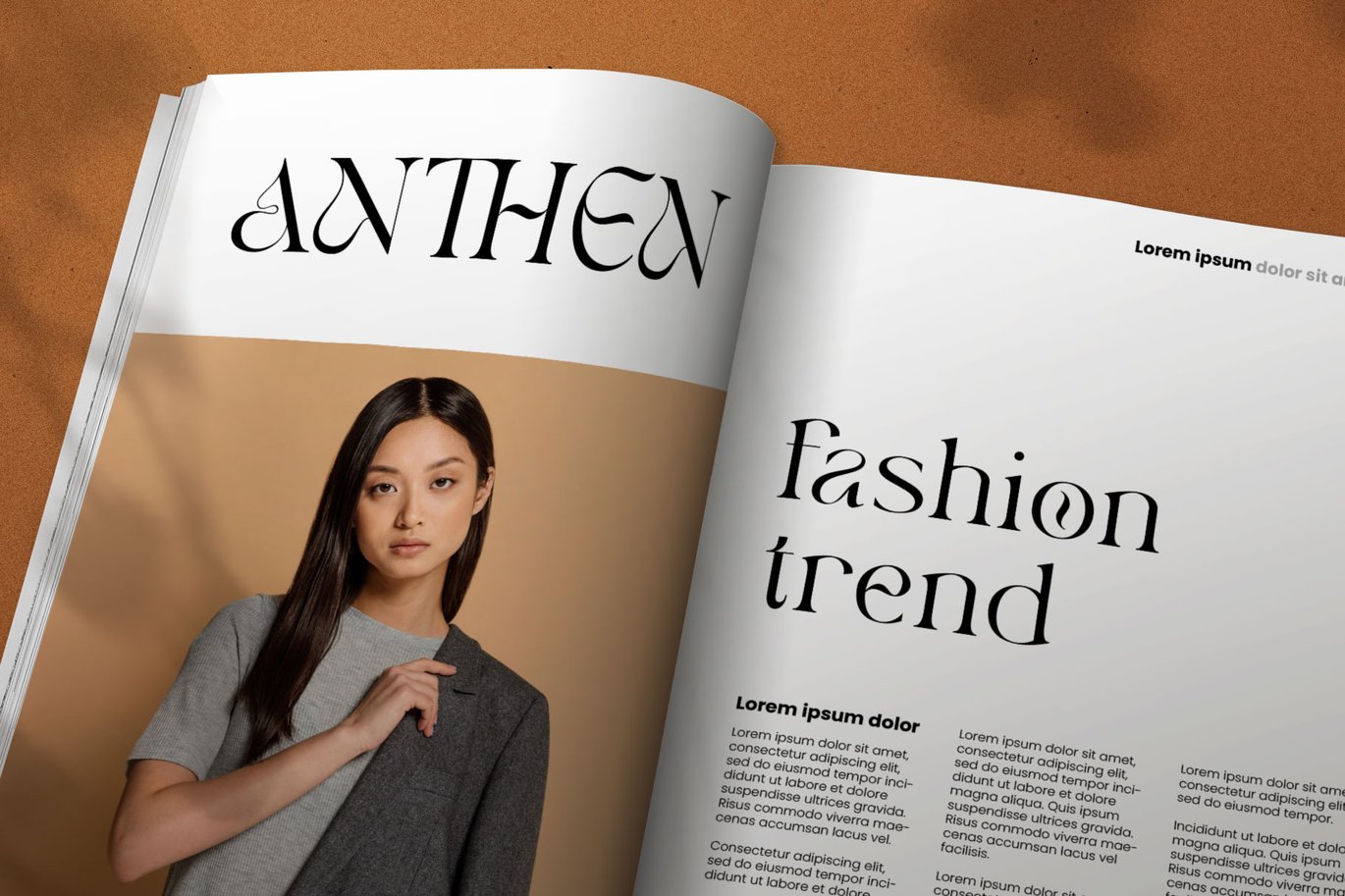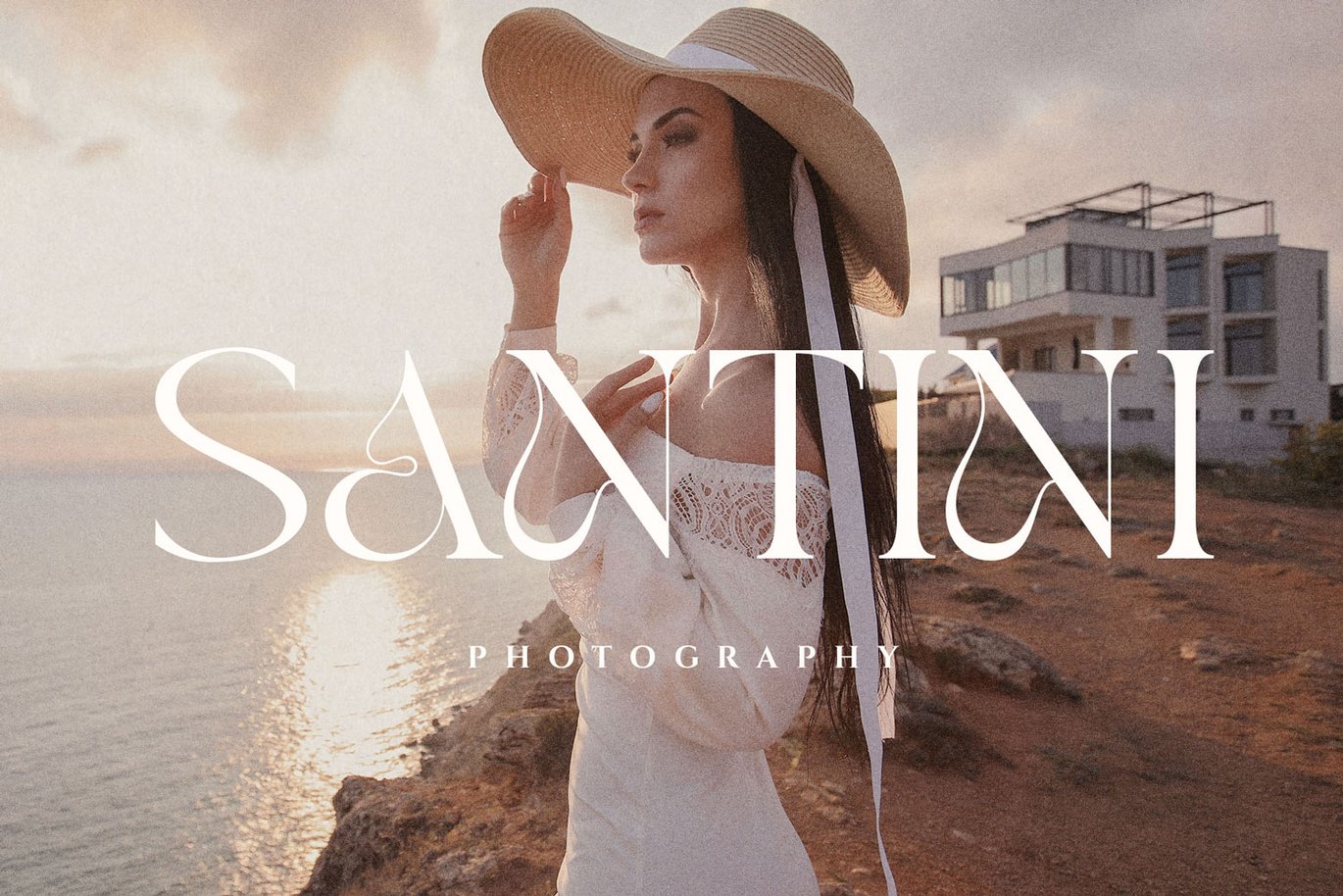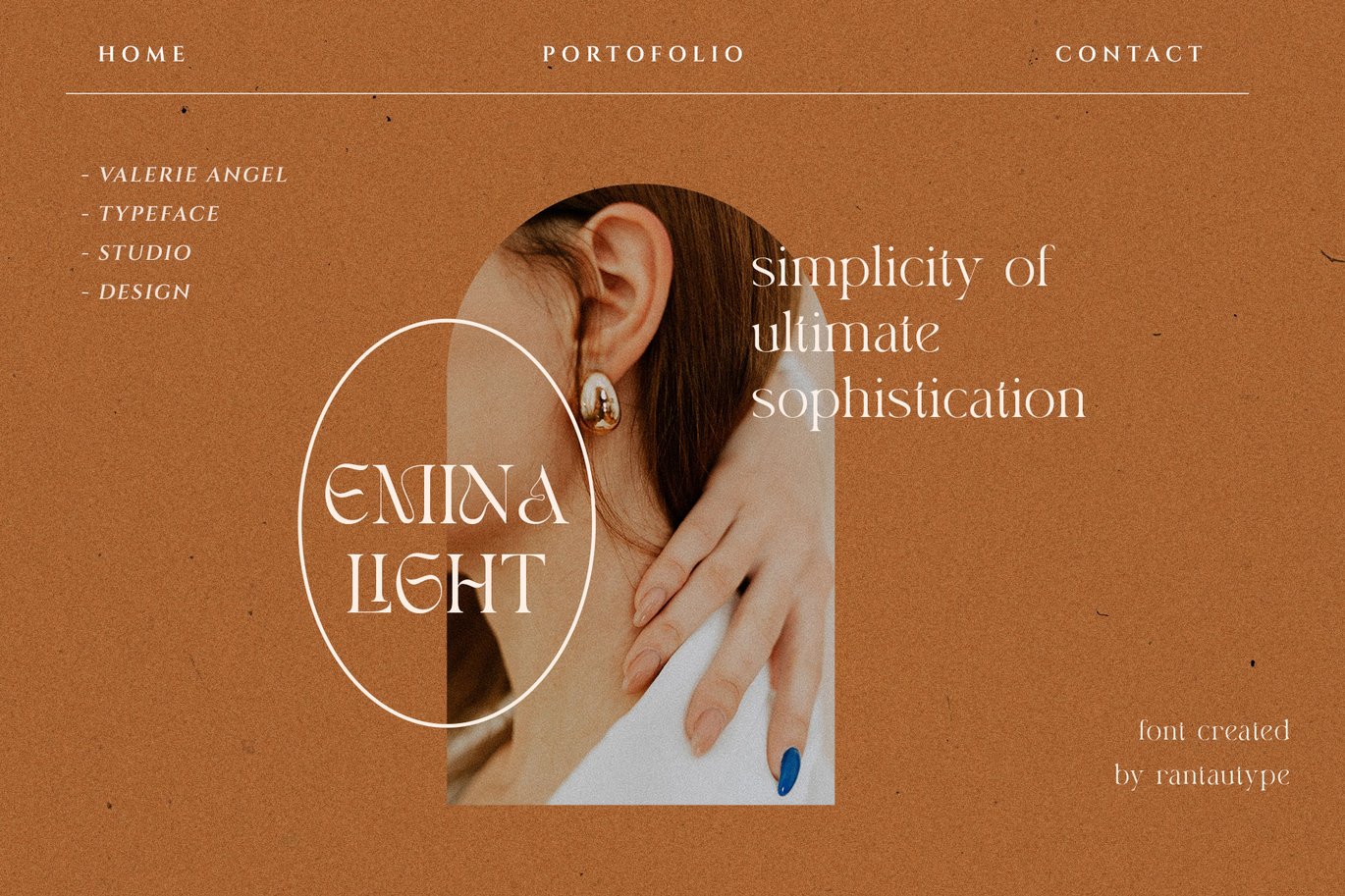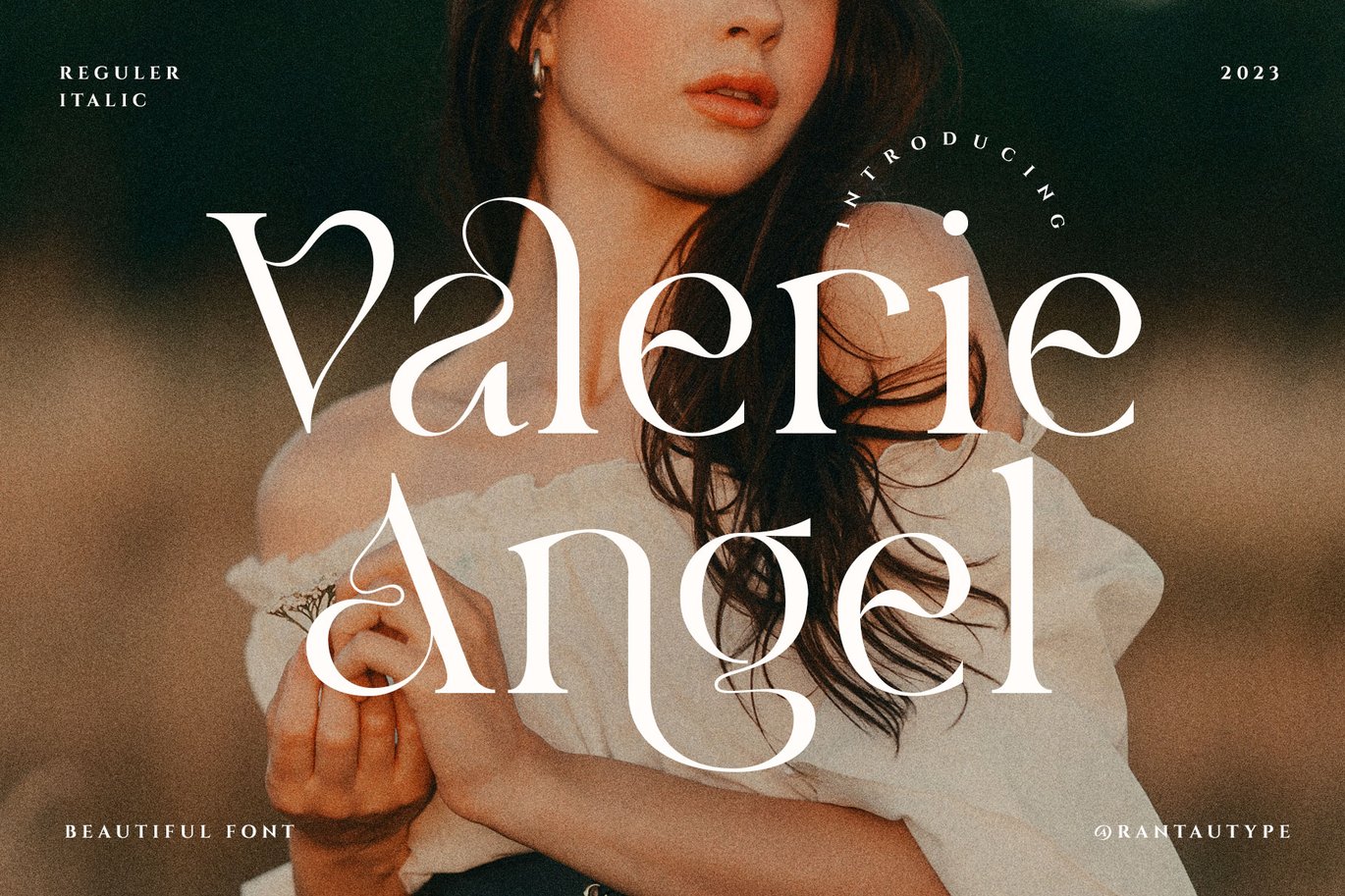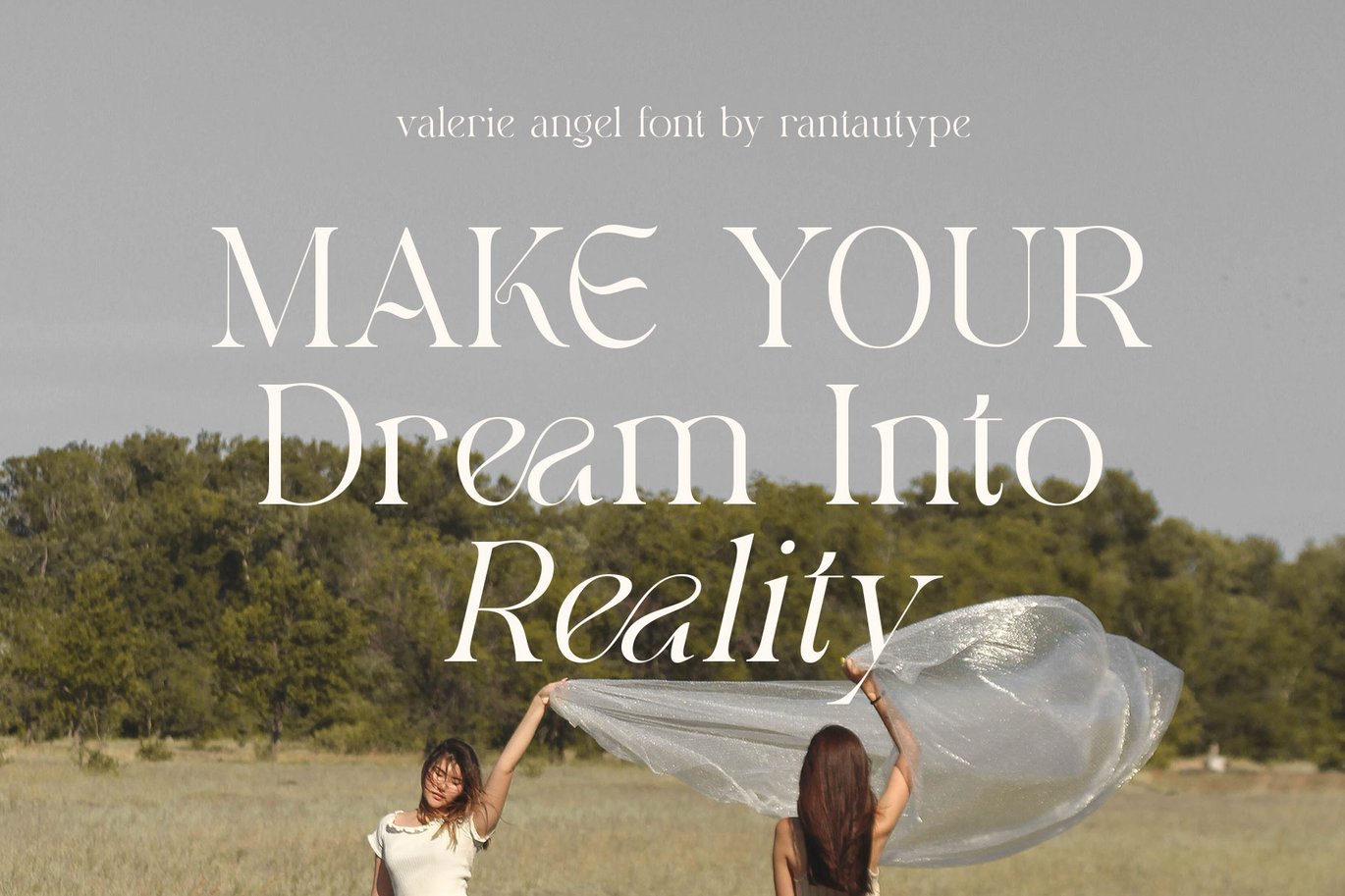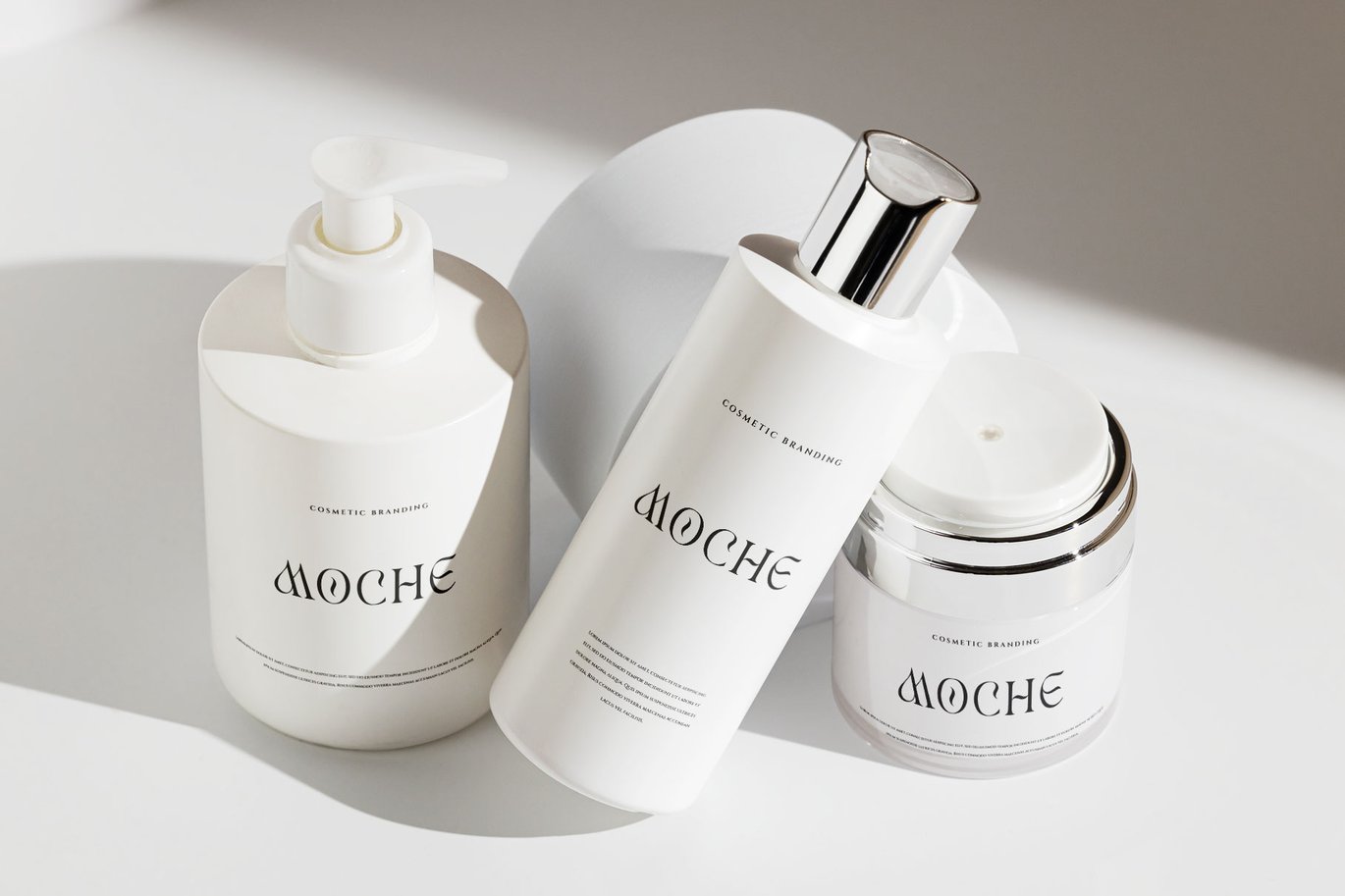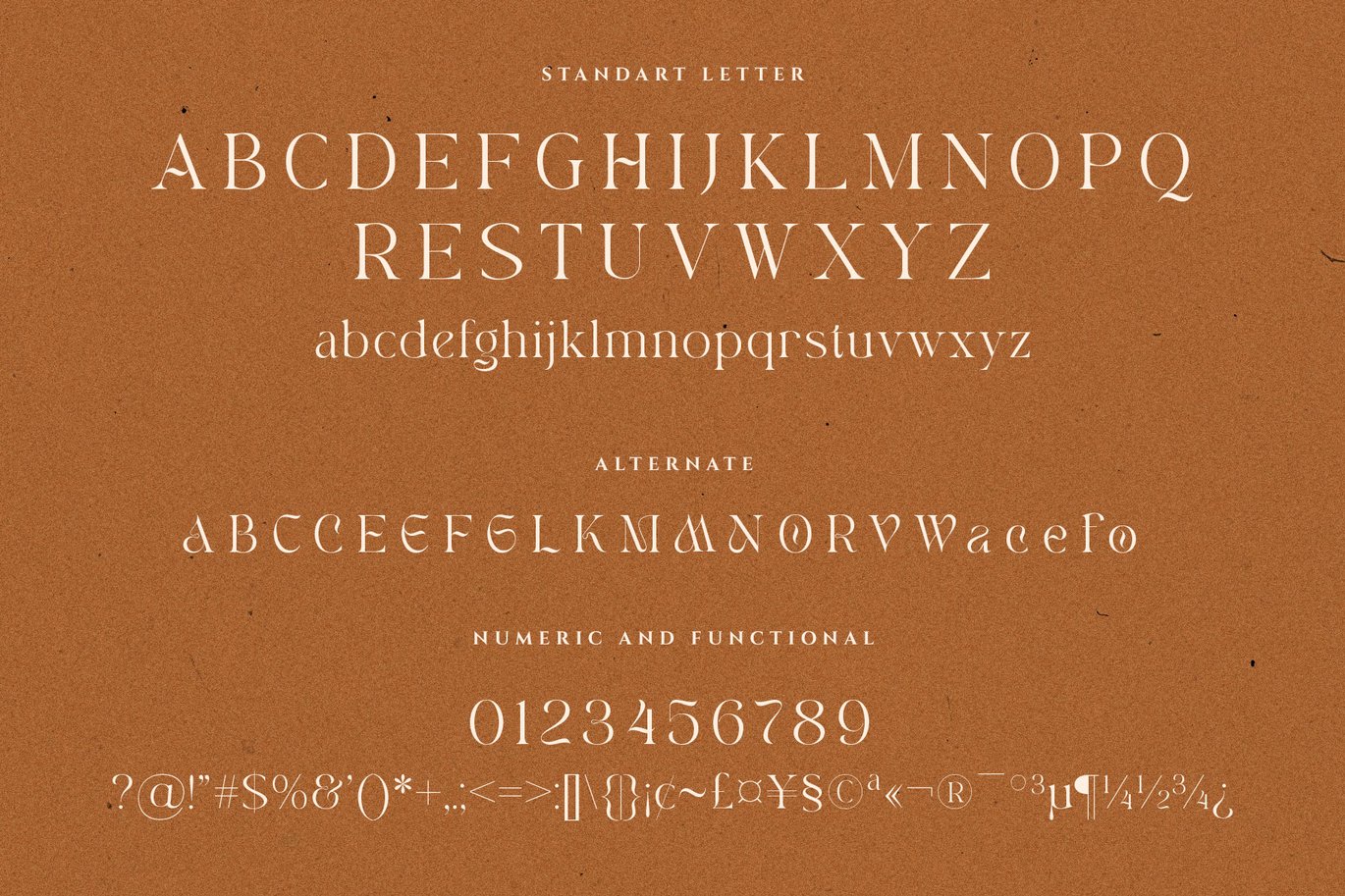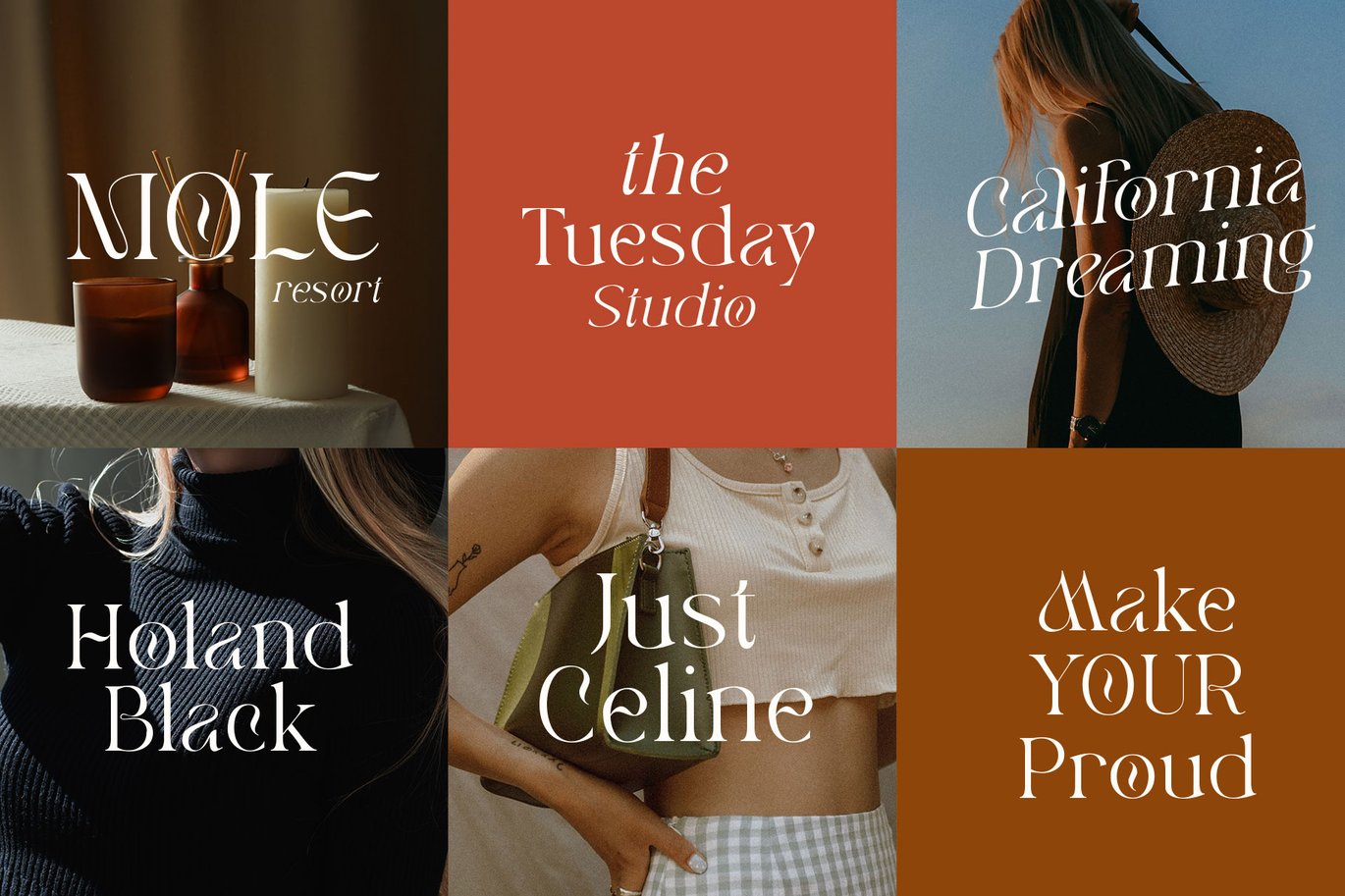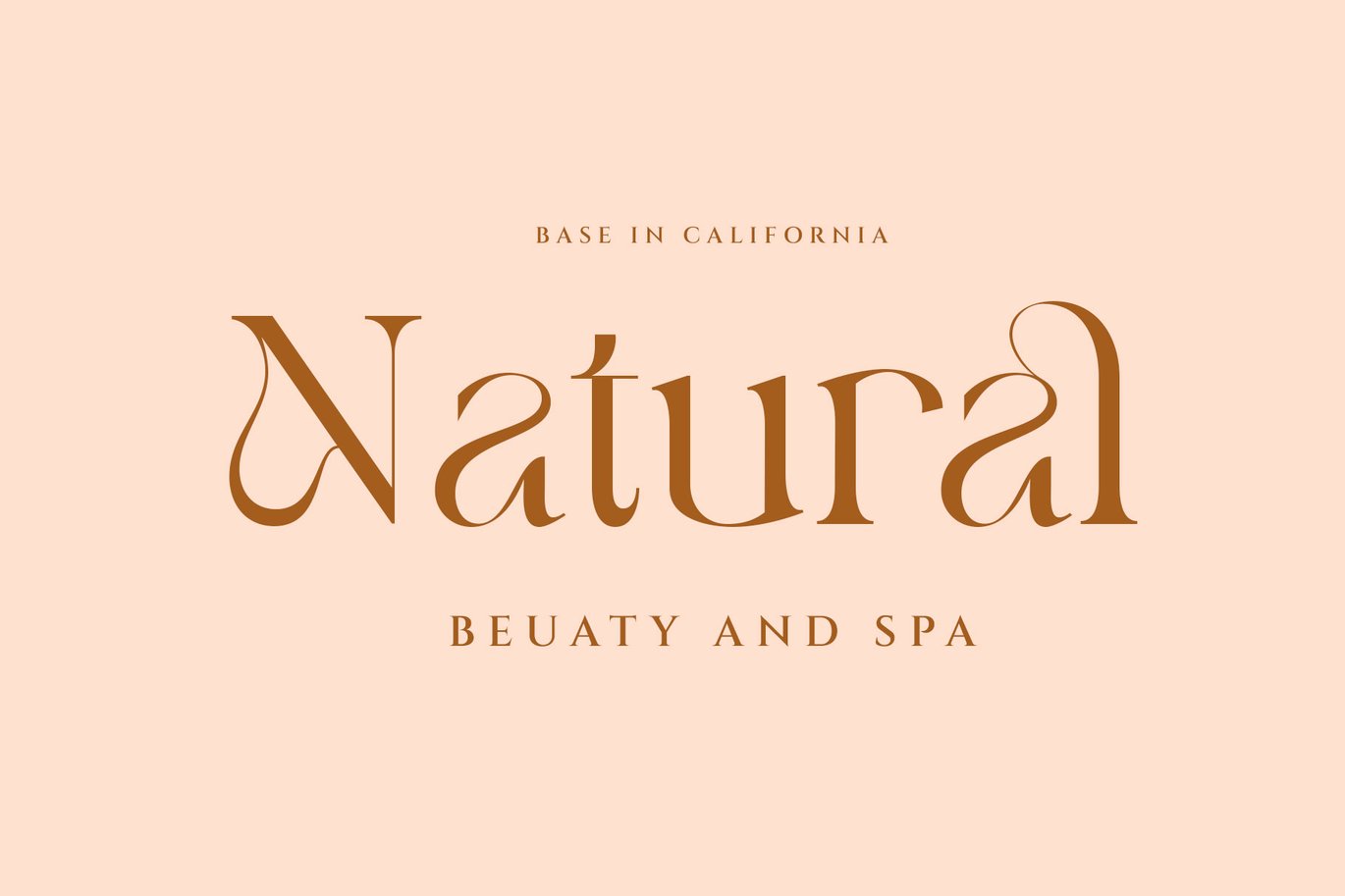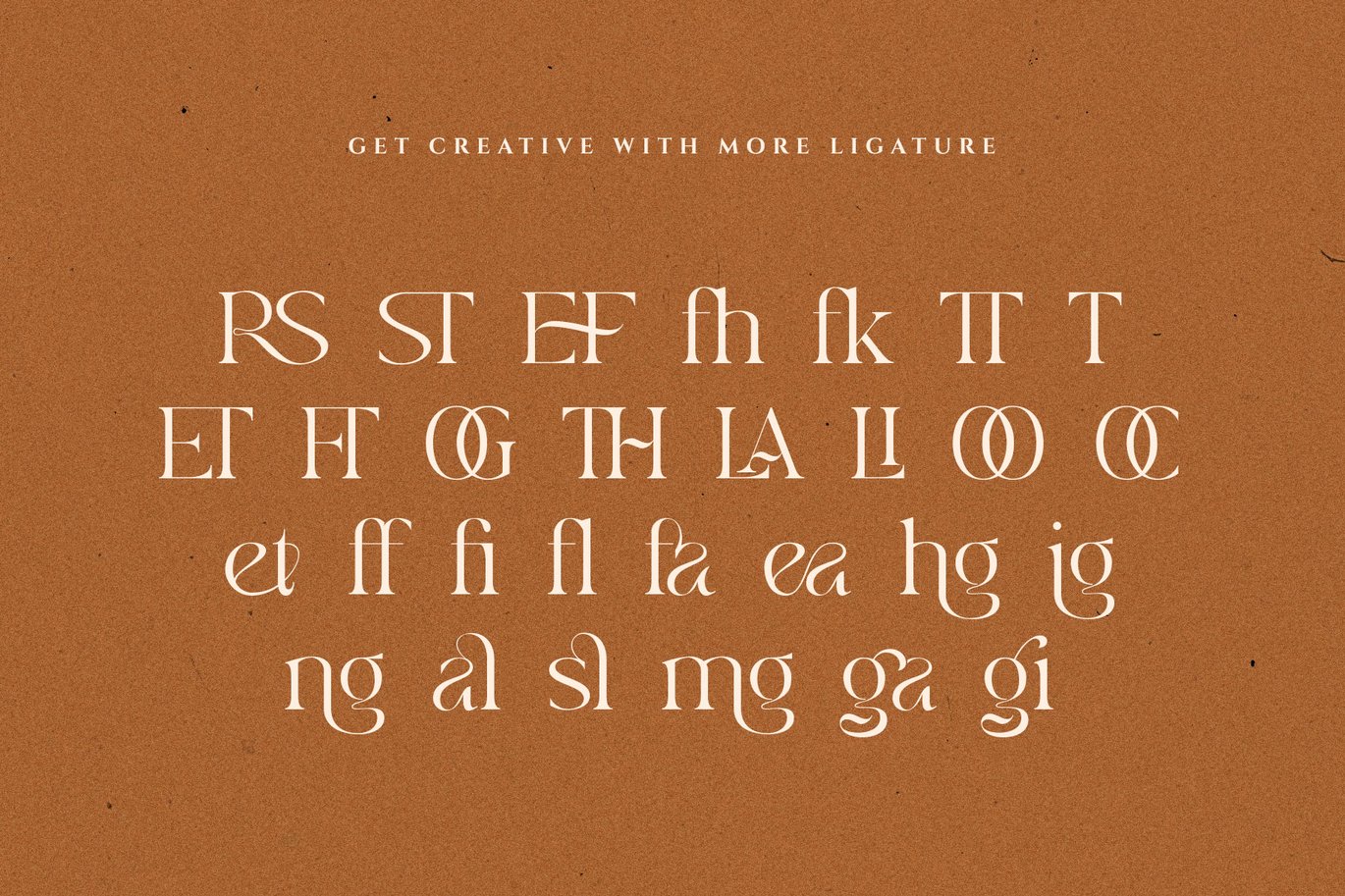
Valerie Angel Beautiful & Elegant Serif Font
Proudly present beautiful serif font called Valerie Angel by rantautype.
Valerie Angel is a beautiful, feminine, display serif font that embraces elegance and grace. Its delicate curves and refined details create a sense of sophistication and femininity wrapped with a beautiful Alternate stylist. we love how A M N W V R y the curve is so charming. Valerie Angel brings a touch of charm and sophistication to branding, editorial designs, and more. We keep this font looks fashionable, elegant, luxury, premium, modern, catchy and easy to use. With its versatility and contemporary appeal.
Valerie Angel – separate in reguler and italic, is a beautiful choice for any creative endeavor, creating elegant, modern, chic, lifestyle design such as logos, title, cover, branding, invitations, wedding designs, display and magazine, social media posts, advertisements, printed quotes, product packaging, product designs, labels, photography, watermarks, special events and more. Now you can using Valerie Angel to make a stunning design.